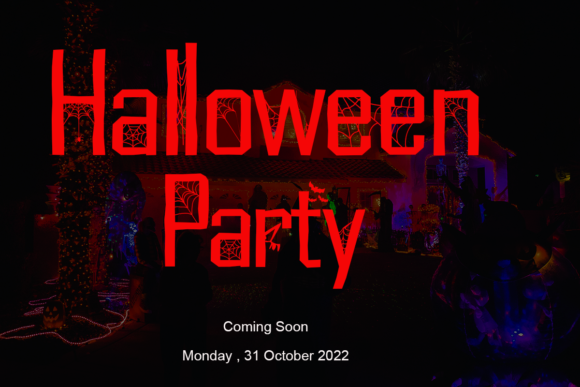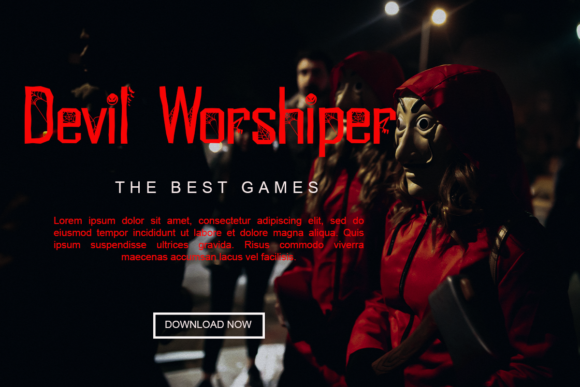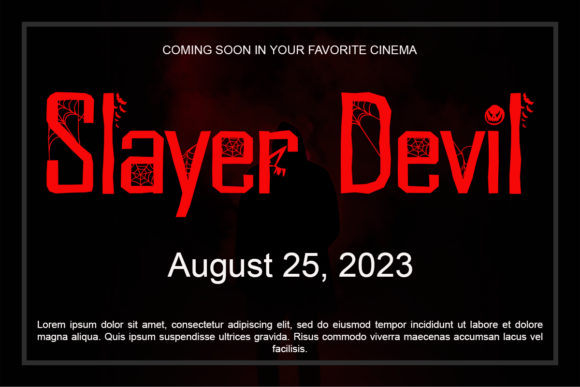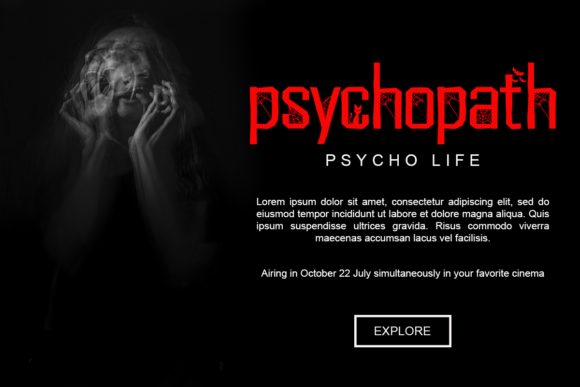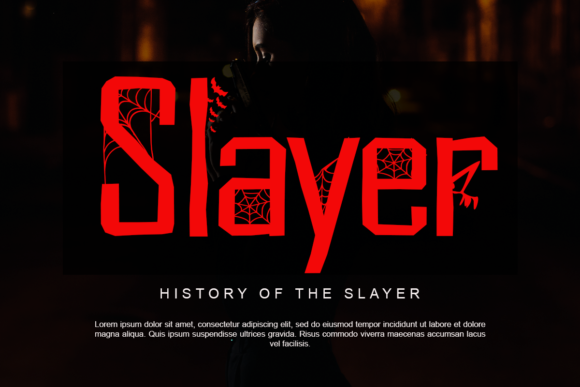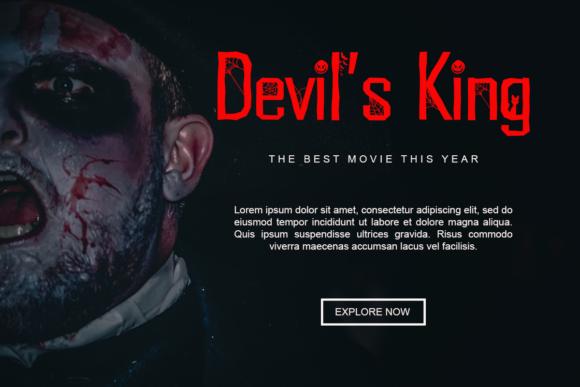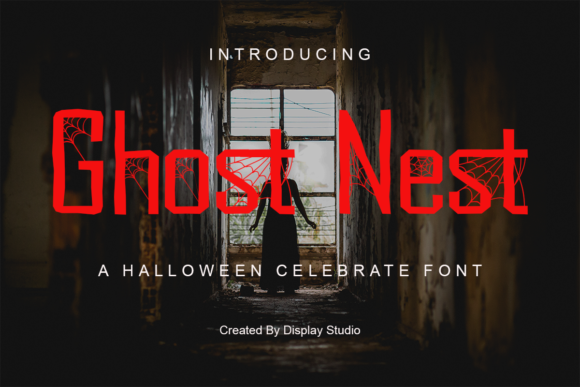
Unleash the Spook: Elevate Your Designs with the Ghost Nest Font
As the witching hour approaches, designers and crafters are on the lookout for the perfect typography to add a spine-tingling touch to their Halloween creations. Look no further than the Ghost Nest Font, a bold and spooky decorative font that’s sure to cast a spell on your audience. In this article, we’ll dive into the eerie elegance of Ghost Nest and explore how you can use it to elevate your Halloween crafts, horror movie posters, t-shirts, and more.
The Haunting Beauty of Ghost Nest
Ghost Nest is a decorative font that’s been carefully crafted to evoke the eerie and mysterious atmosphere of the supernatural. Its bold, ghostly letters seem to leap off the page, conjuring up images of abandoned mansions, creepy crawlies, and things that go bump in the night. Whether you’re designing a haunted house invitation or a spooky t-shirt, Ghost Nest is the perfect choice for adding a touch of macabre whimsy to your project.
Perfect for Halloween Crafts
Halloween is a time for creativity and self-expression, and Ghost Nest is the perfect font to add to your arsenal of crafty supplies. Use it to create:
- Haunted house invitations that will leave your guests shivering with anticipation
- Spooky signs and banners that will add a touch of eerie elegance to your Halloween party
- Creepy crafts, such as ghostly garlands, spider web decorations, and more
With Ghost Nest, the possibilities are endless, and your Halloween crafts are sure to stand out from the crowd.
Elevate Your Horror Movie Posters
Horror movie posters require a font that’s bold, attention-grabbing, and evocative of the fear and suspense that defines the genre. Ghost Nest is the perfect choice for adding a touch of horror movie magic to your poster designs. Use it to create:
- Eye-catching titles and taglines that will leave audiences shivering with fear
- Creepy character names and descriptions that will add to the sense of unease and foreboding
- Posters that will stand out on social media and leave a lasting impression on horror fans
With Ghost Nest, you can create horror movie posters that are sure to send chills down the spines of your audience.
T-Shirt Designs that will Die for
T-shirts are a great way to showcase your creativity and style, and Ghost Nest is the perfect font to add to your design arsenal. Use it to create:
- Spooky t-shirt designs that will be the talk of the town
- Creepy phrases and slogans that will add a touch of dark humor to your tee
- Designs that will appeal to fans of horror movies, haunted houses, and all things spooky
With Ghost Nest, you can create t-shirt designs that are sure to be a hit with anyone who loves the spooky and unknown.
Tips for Using Ghost Nest
To get the most out of Ghost Nest, here are a few tips to keep in mind:
- Use it sparingly: Ghost Nest is a bold font, so use it sparingly to add emphasis and create visual interest.
- Pair it with contrasting fonts: Pair Ghost Nest with contrasting fonts, such as a clean sans-serif or a elegant script, to create visual interest and add depth to your design.
- Experiment with colors: Ghost Nest looks great in a range of colors, from bold and bright to dark and muted. Experiment with different colors to find the perfect look for your design.
By following these tips, you can unlock the full potential of Ghost Nest and create designs that are sure to leave a lasting impression.
In conclusion, Ghost Nest is a bold and spooky decorative font that’s perfect for adding a touch of eerie elegance to your Halloween crafts, horror movie posters, t-shirts, and more. With its haunting beauty and versatility, Ghost Nest is sure to be a hit with designers and crafters who are looking to create spooky and eye-catching designs. So why wait? Download Ghost Nest today and unleash the spook in your designs!